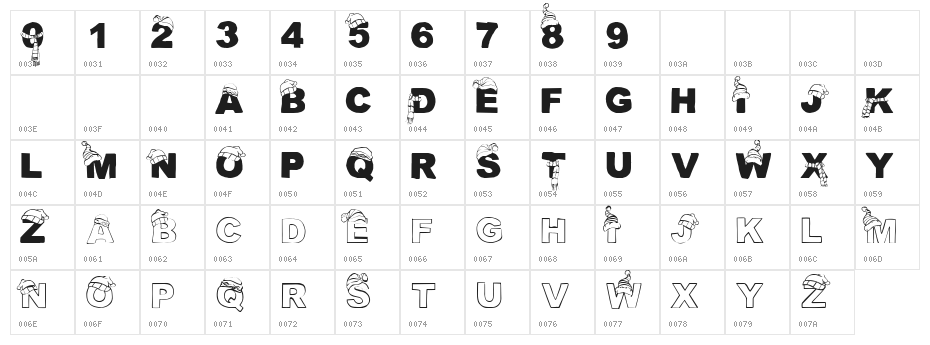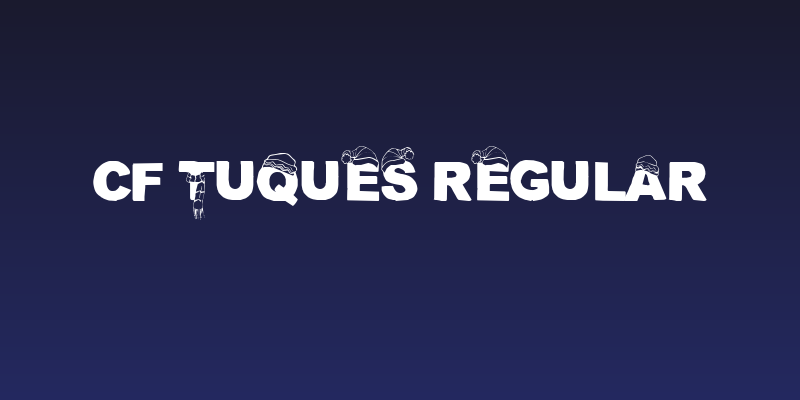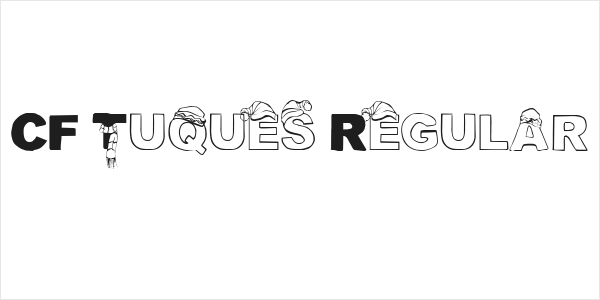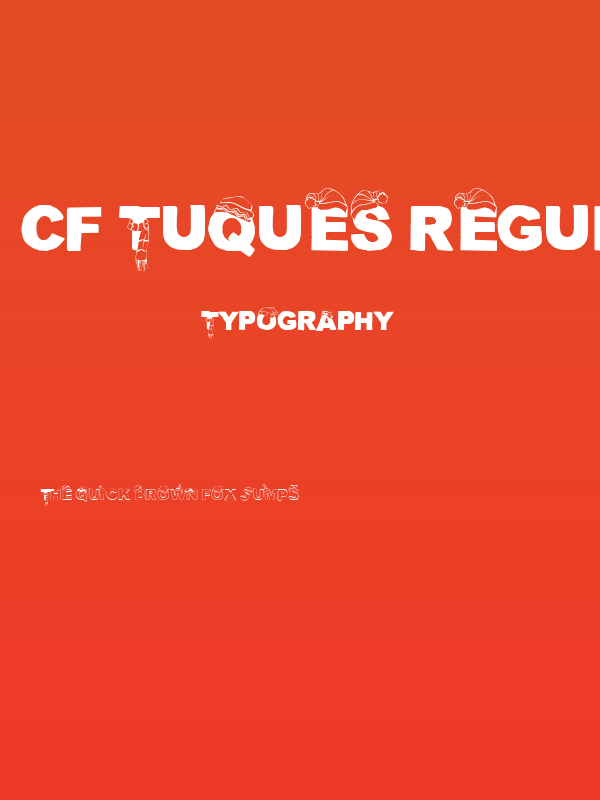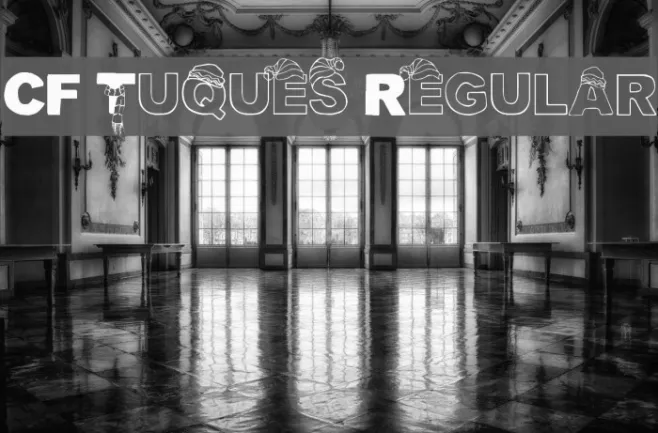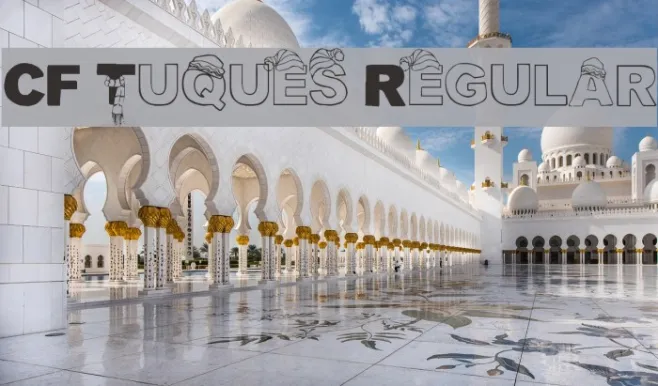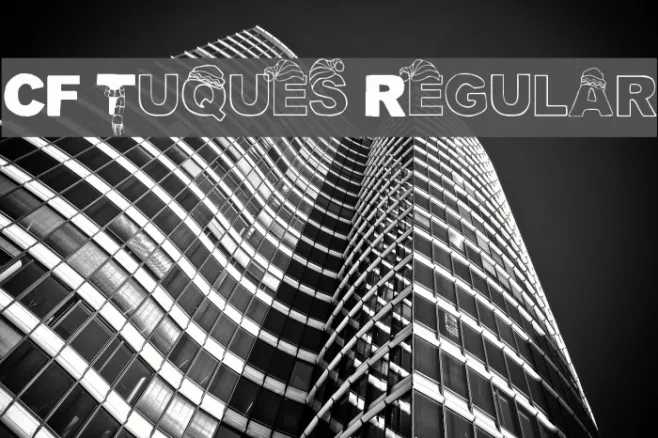
CF Tuques Regular Font
CF Tuques Regular Description
This playful and festive font features bold, uppercase letters adorned with winter hats, adding a whimsical touch to each character. The design is perfect for holiday-themed projects, capturing a sense of fun and warmth. The letters are bold and have a strong presence, making them suitable for headlines and decorative purposes. The inclusion of hats on each character adds a unique and charming element, making it ideal for designs that aim to convey a cheerful and festive atmosphere. The font includes numbers, each with a similar playful design, ensuring consistency across all characters.
| Proposed Projects | Ideal for holiday cards, festive banners, seasonal advertisements, and playful branding. |